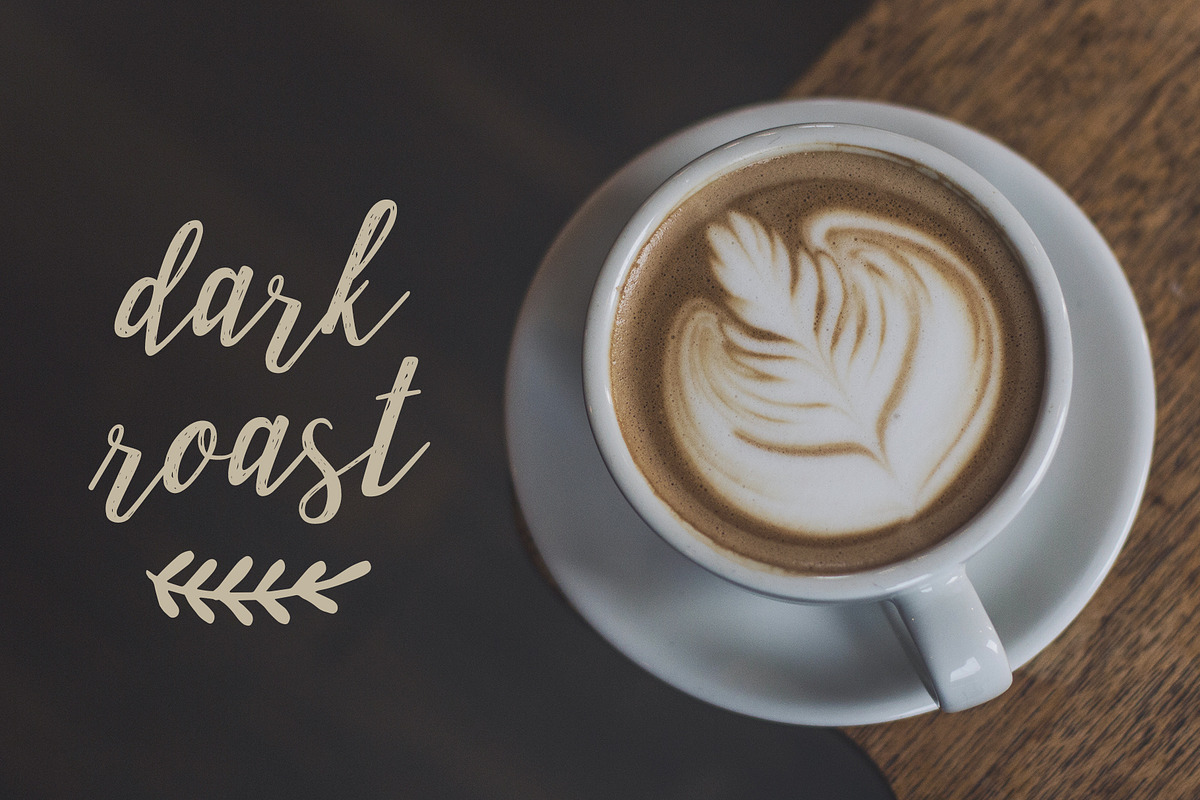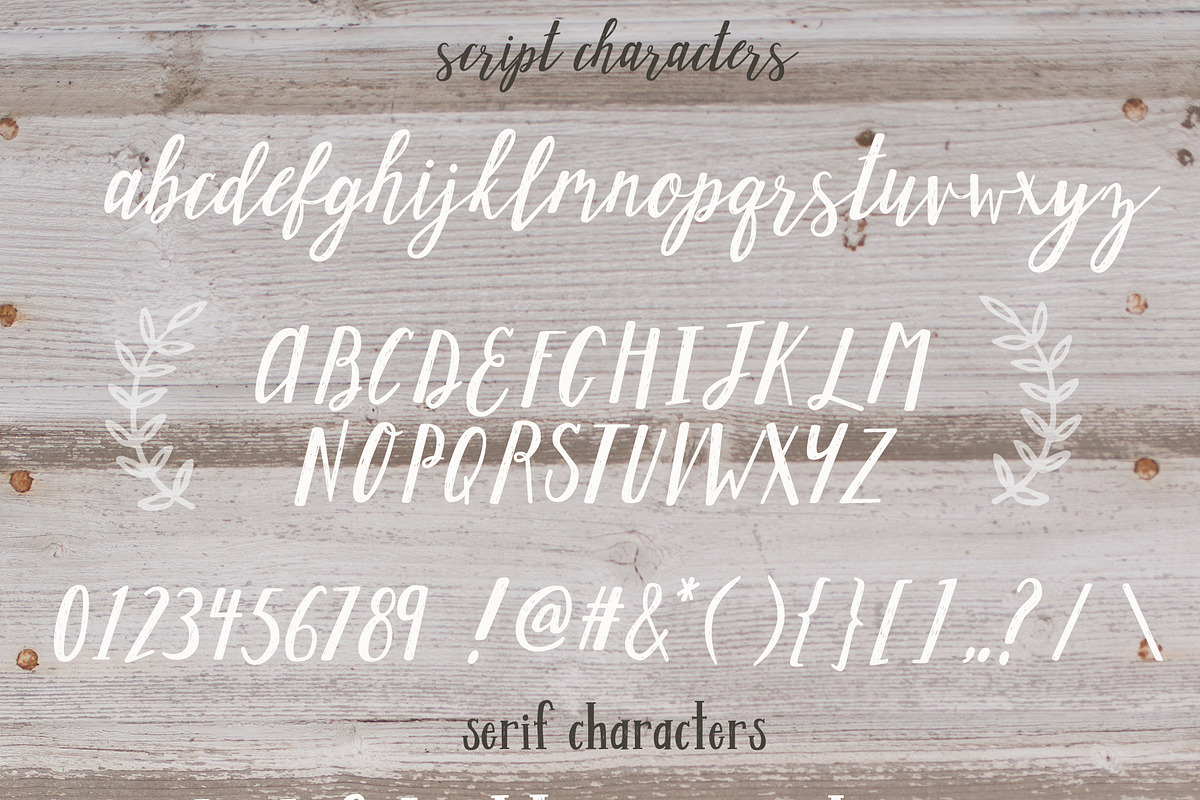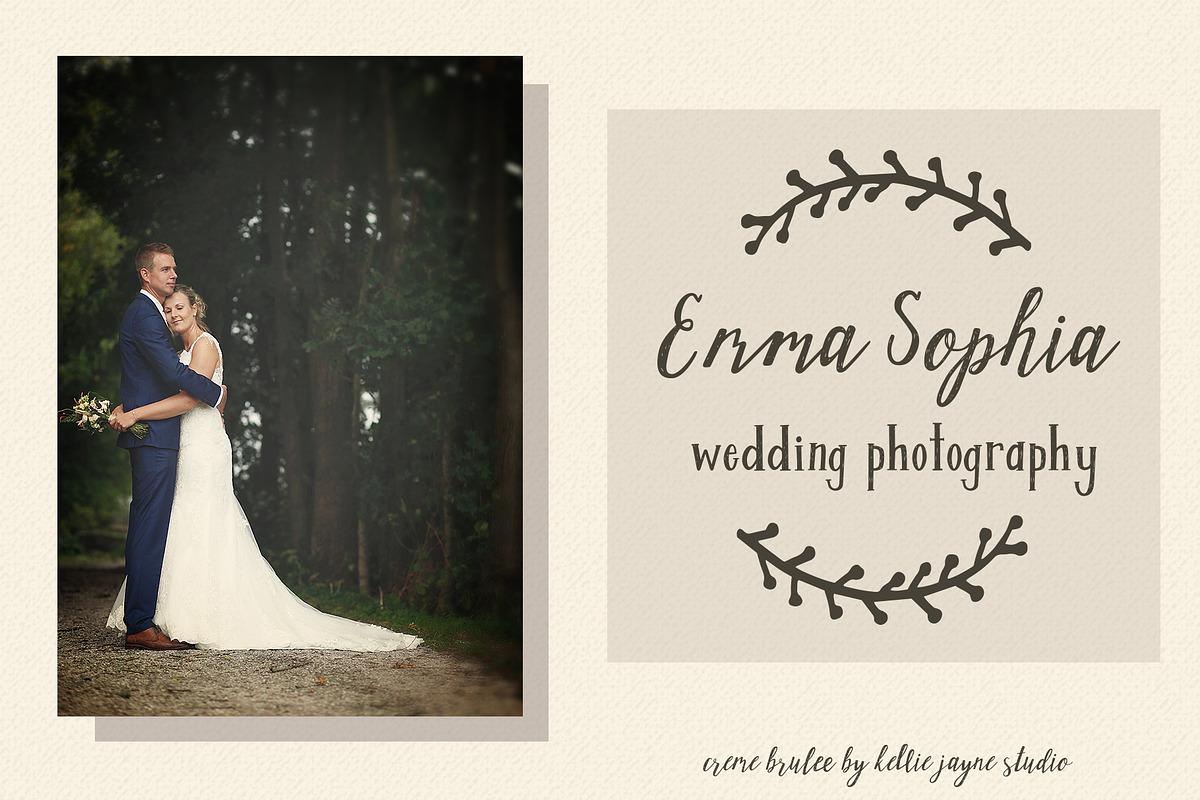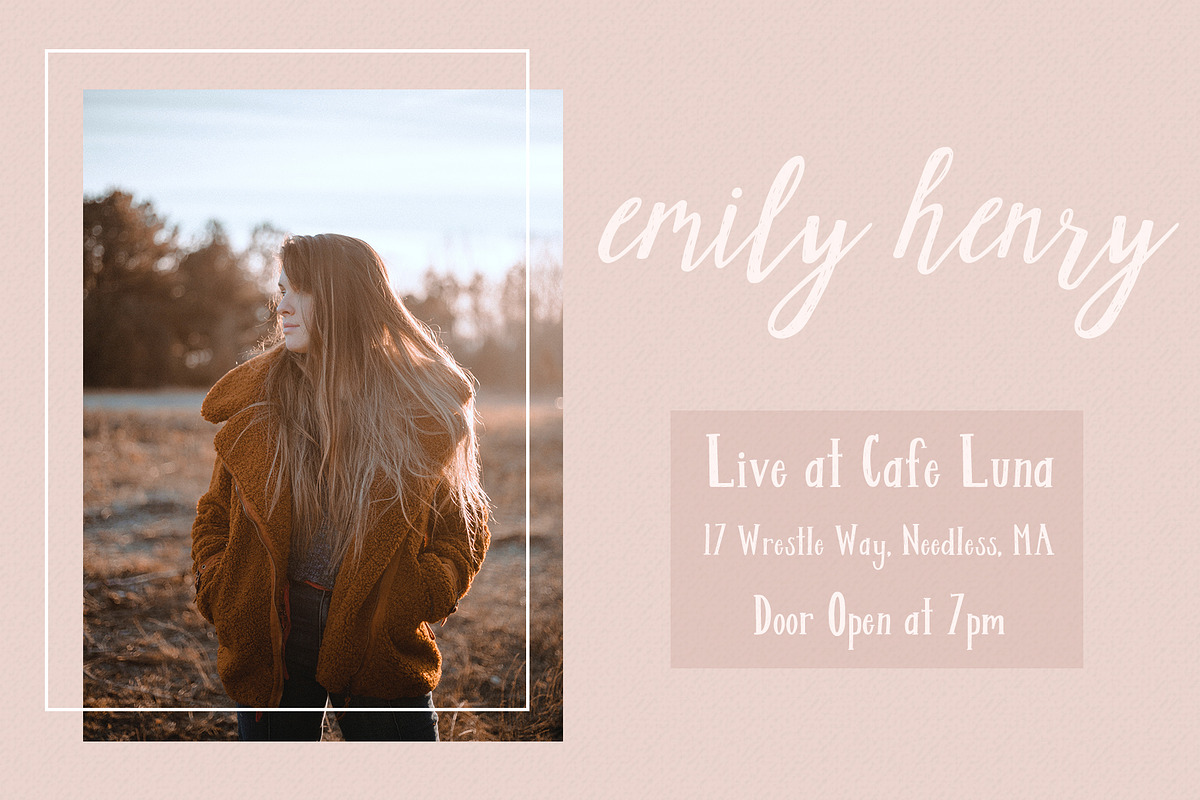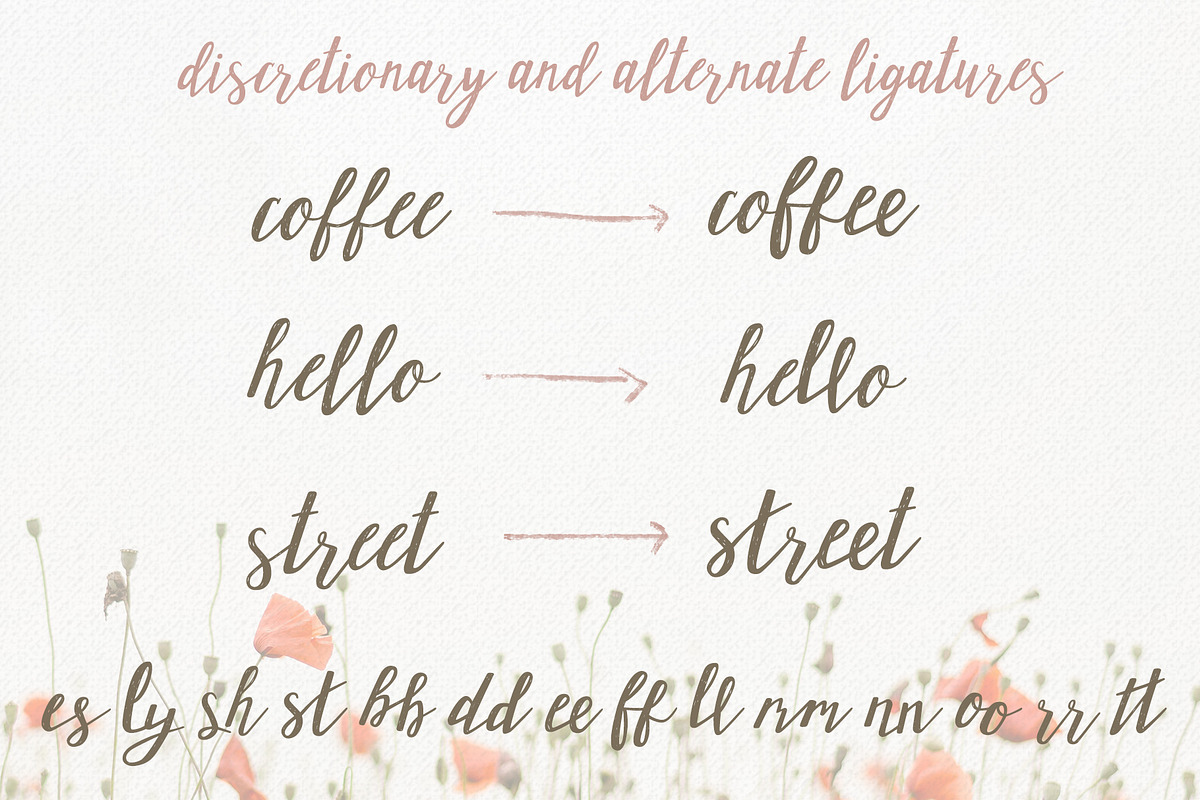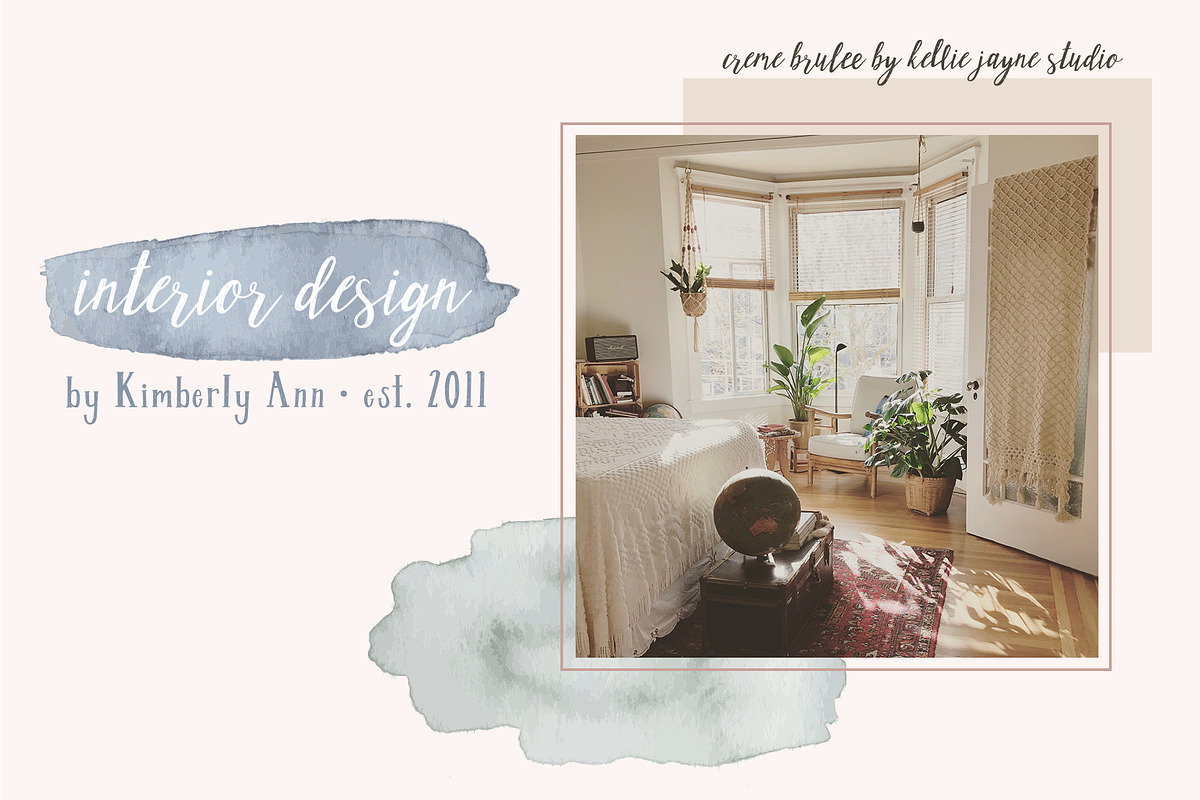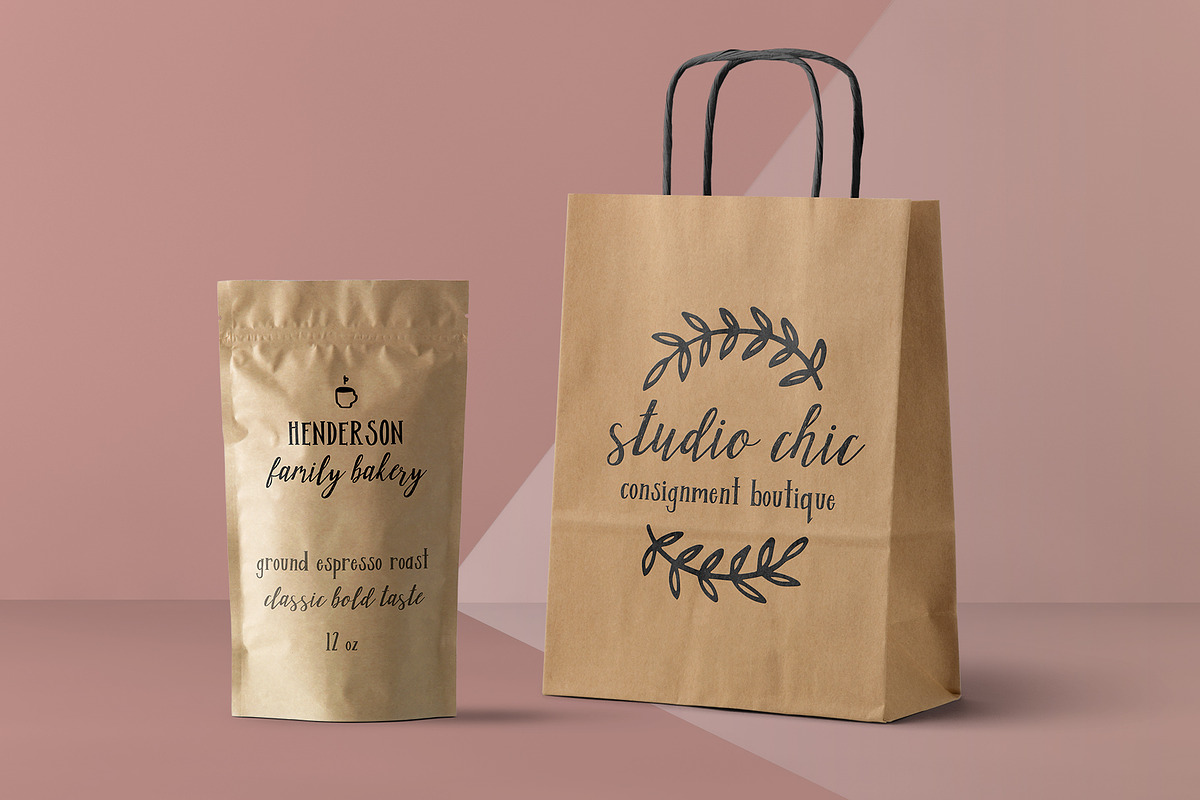
Creme Brulee Font Duo and Logo Kit
Creme Brulee is a lovely hand written script and serif font duo perfect for branding, blogging, wedding stationary, packaging, social media images, Pinterest, quotes, wall art, and more!
Creme Brulee script includes ligatures for a totally hand written look in your projects. It also contains multilingual characters for Western European language support.